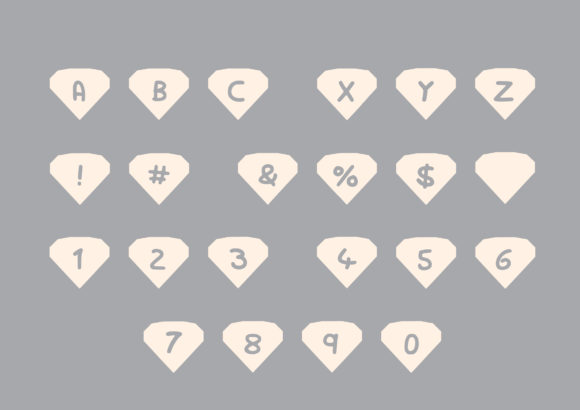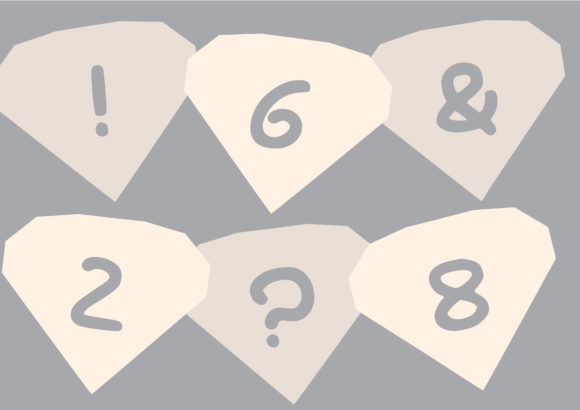
Introduction to Play Diamond Font
Remember the thrill of creating something entirely new and unique? It’s that spark of creativity that drives designers to push boundaries and explore innovative ways to express themselves. For those moments when you need to add an extra layer of excitement to your project, there’s one design resource that stands out: the Play Diamond Font.
This eye-catching font features a diamond on each character, instantly elevating any text to a whole new level. Whether you’re working on a high-quality logo, a creative project, or just a fun graphic, the Play Diamond Font has the potential to be a game-changer. With its unique and interesting design, it’s a must-have for any designer looking to add some extra flair to their work.
Key Features of Play Diamond Font
- Unique diamond-shaped design elements, ideal for creative projects requiring a touch of luxury and sophistication.
- Designed with a modern aesthetic, Play Diamond Font is perfect for use in logos, branding materials, and other design elements requiring a touch of elegance.
Honest Review: Play Diamond Font
I recently had the opportunity to use the Play Diamond Font in one of my creative projects, and I must say it was a great experience. This font is a fantastic design resource that can elevate any project with its unique and playful style.
What works well: ✨ The font is highly customizable, making it perfect for designers who want to add a touch of personality to their work. The transparent background also allows for seamless integration with any design element. Plus, it’s completely free to download, which is always a bonus.
Some limitations: ⚠️ While the font is versatile, it may not be suitable for formal or professional projects. Additionally, the bold style can be overwhelming if not used judiciously.
Overall, I’m impressed with the Play Diamond Font. It’s a high-quality design resource that can add a creative twist to any project. If you’re looking for a fun and playful font, this is definitely worth checking out.
- Perfect for creative projects that require a playful touch
- Highly customizable for a unique look
Tips for Getting the Most Out of Play Diamond Font
Experiment with different font sizes, colors, and combinations to find the perfect balance for your design. Use the font in conjunction with other design elements to create a cohesive and visually appealing design.
The Play Diamond Font is ideal for various creative projects, including logos, branding materials, social media graphics, and presentations. Its high quality and free download make it a valuable design resource for anyone looking to elevate their design game.